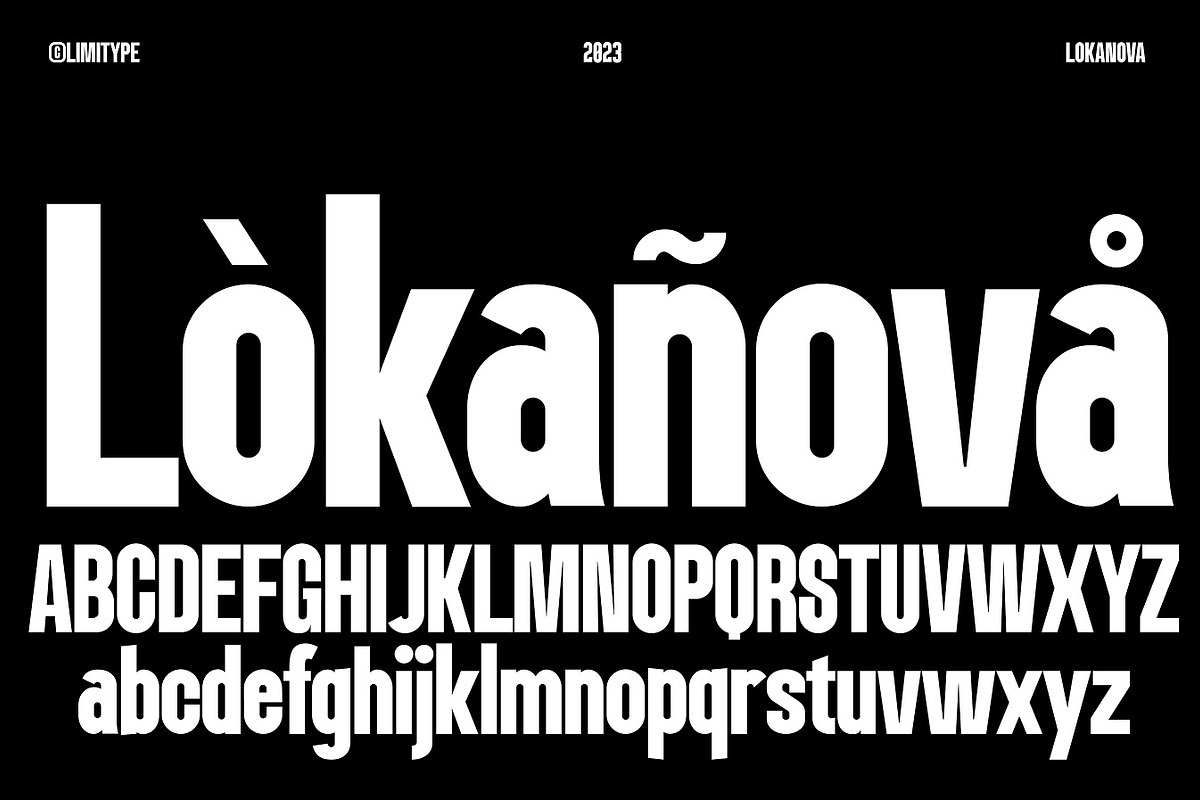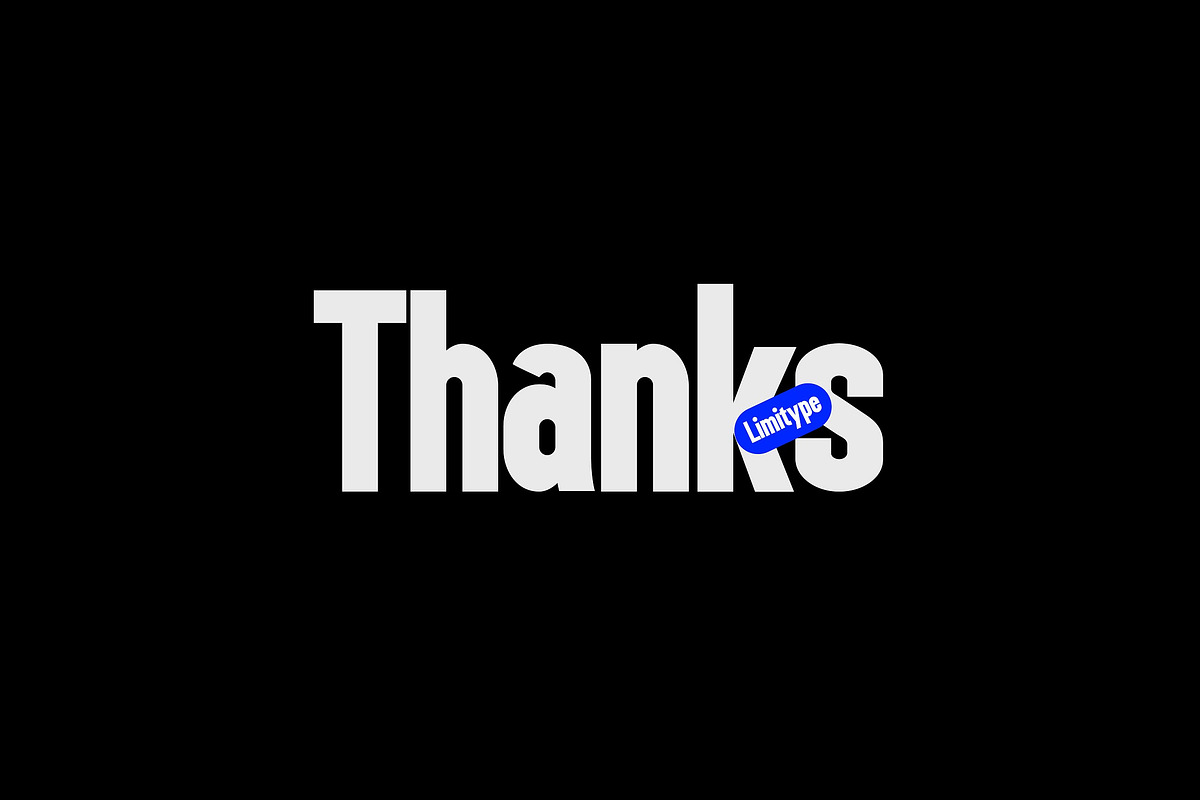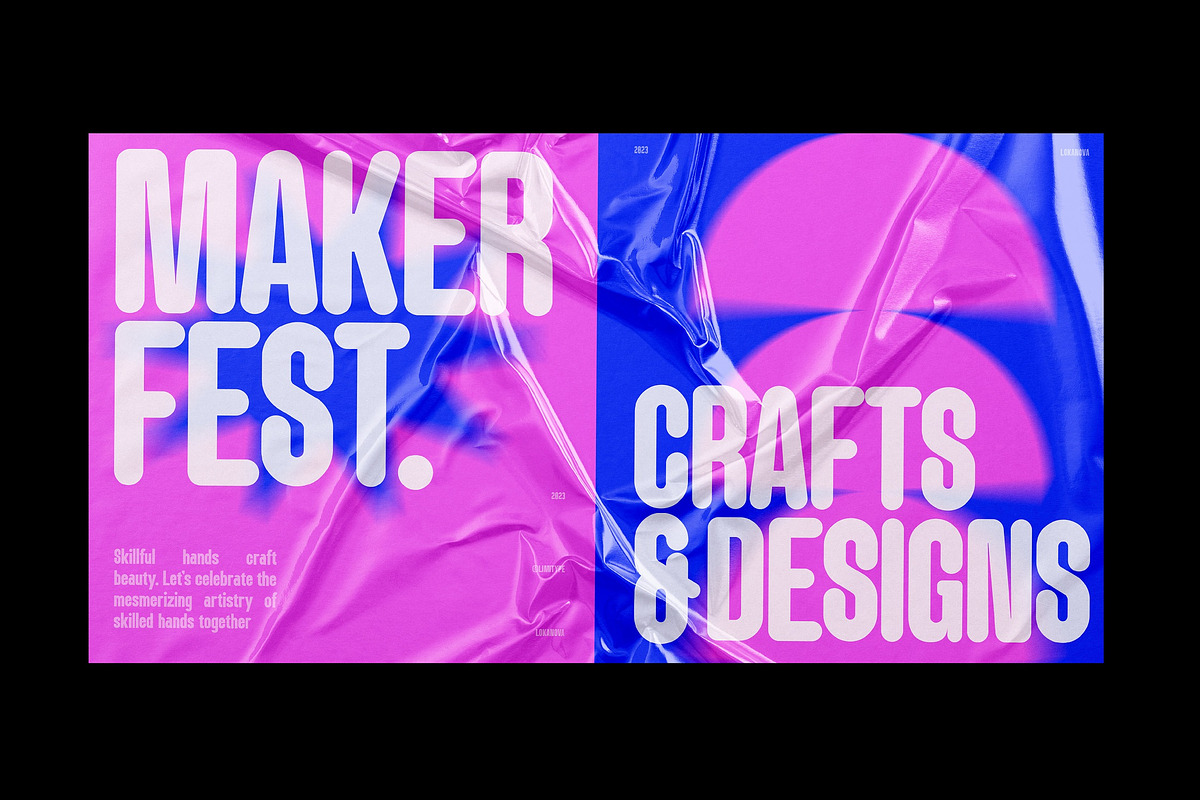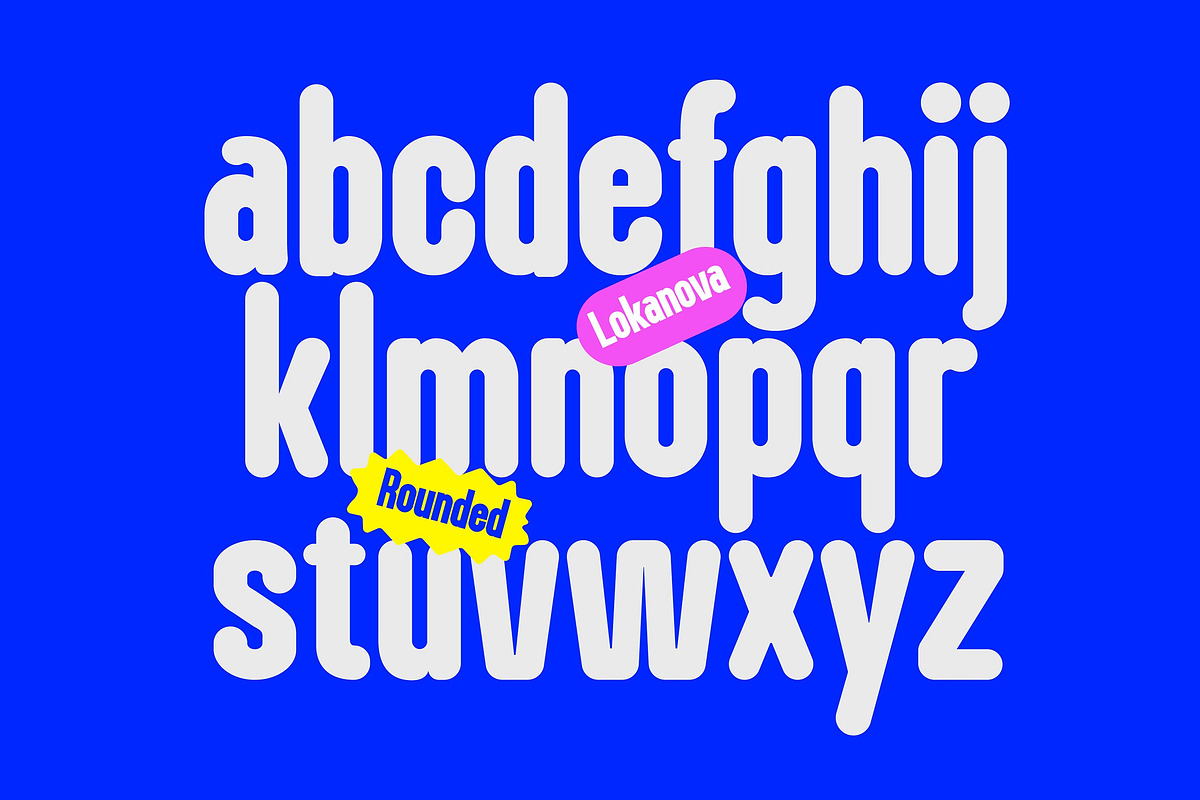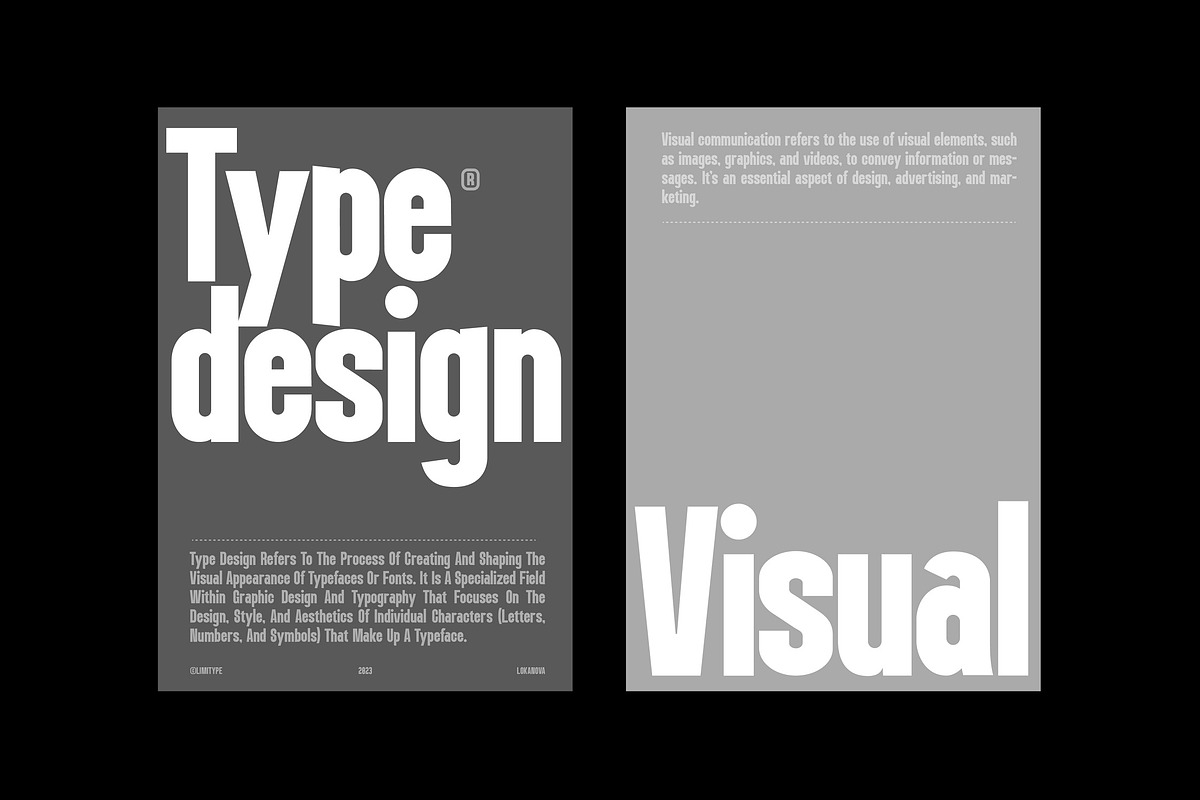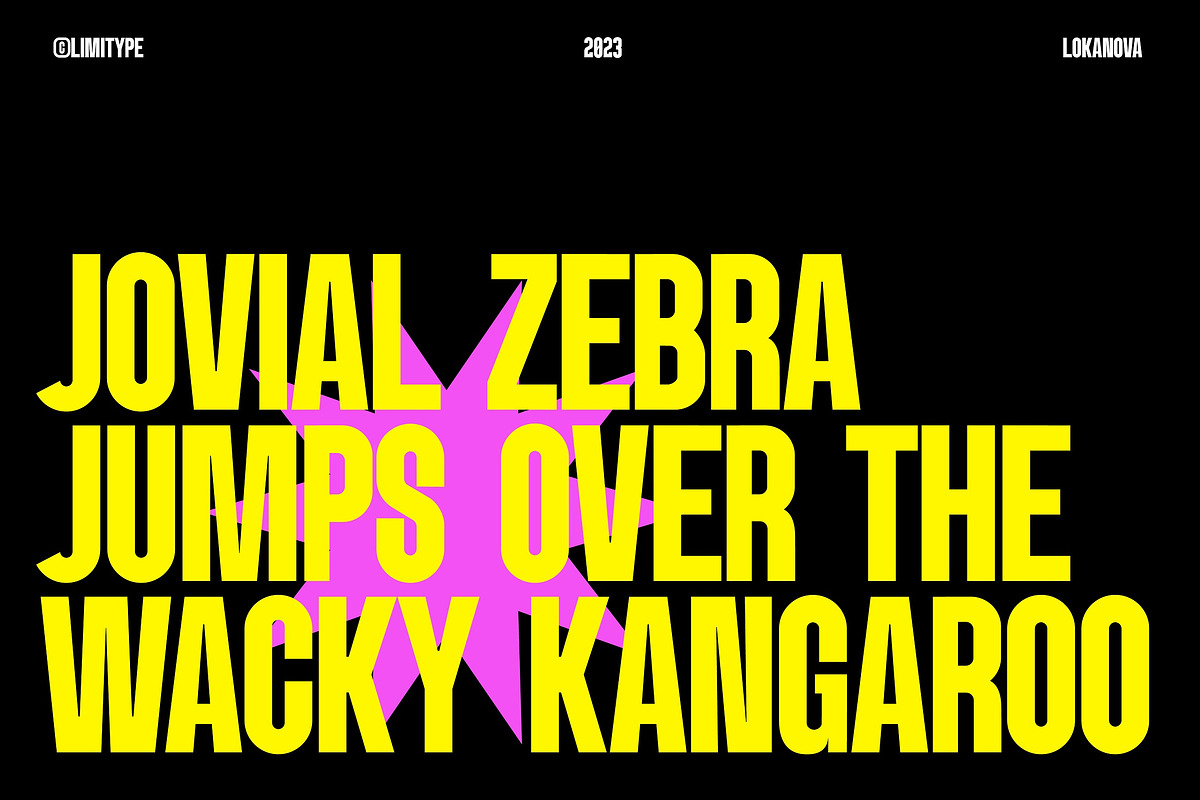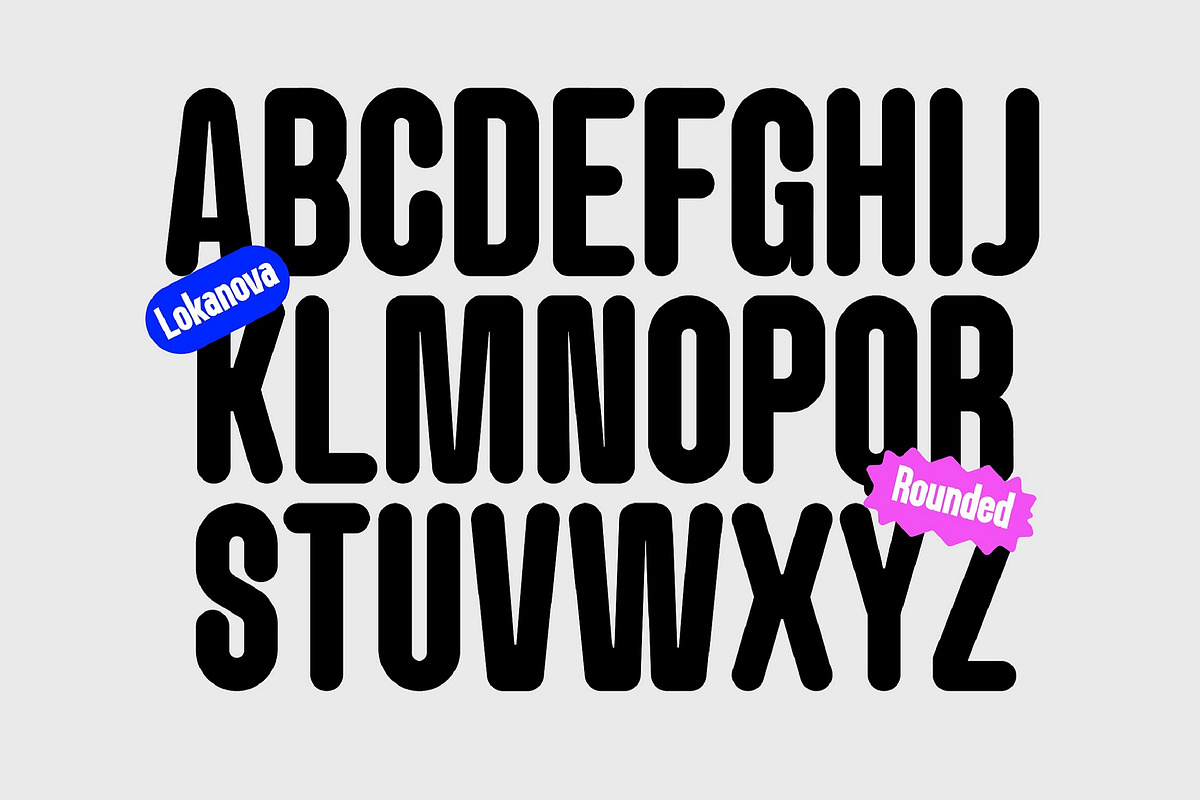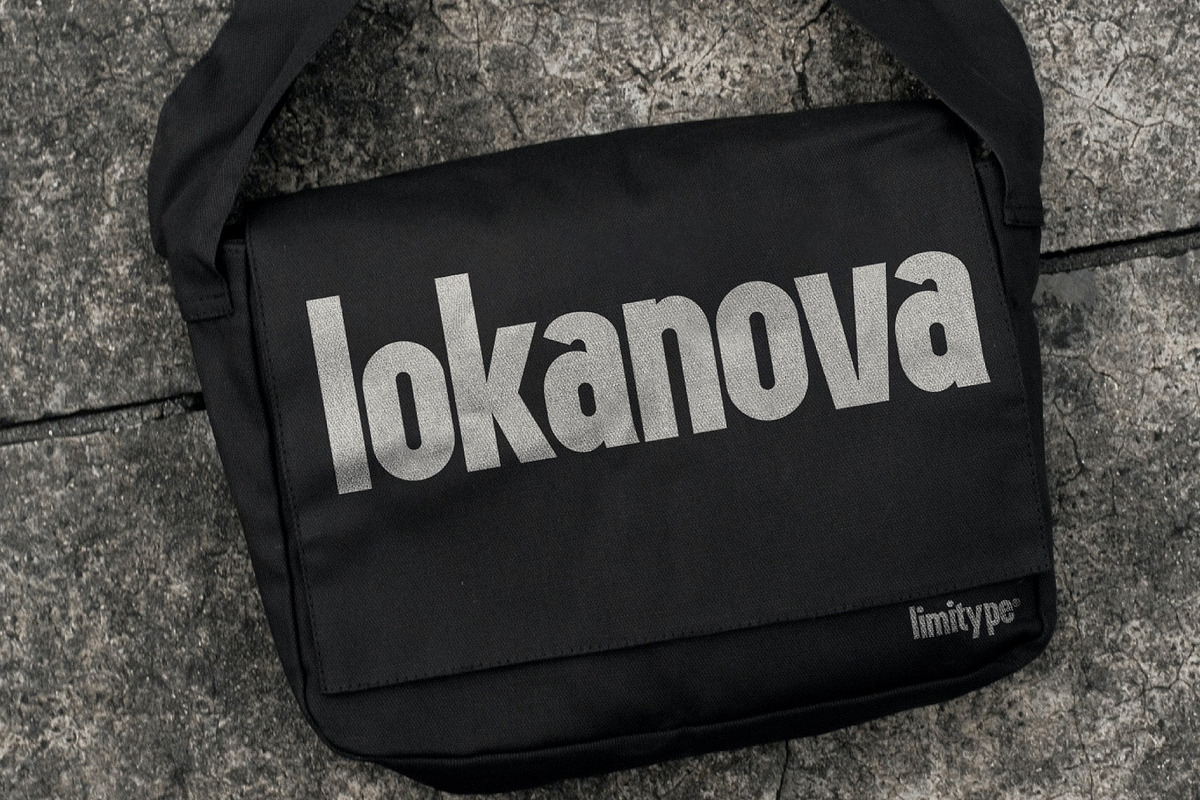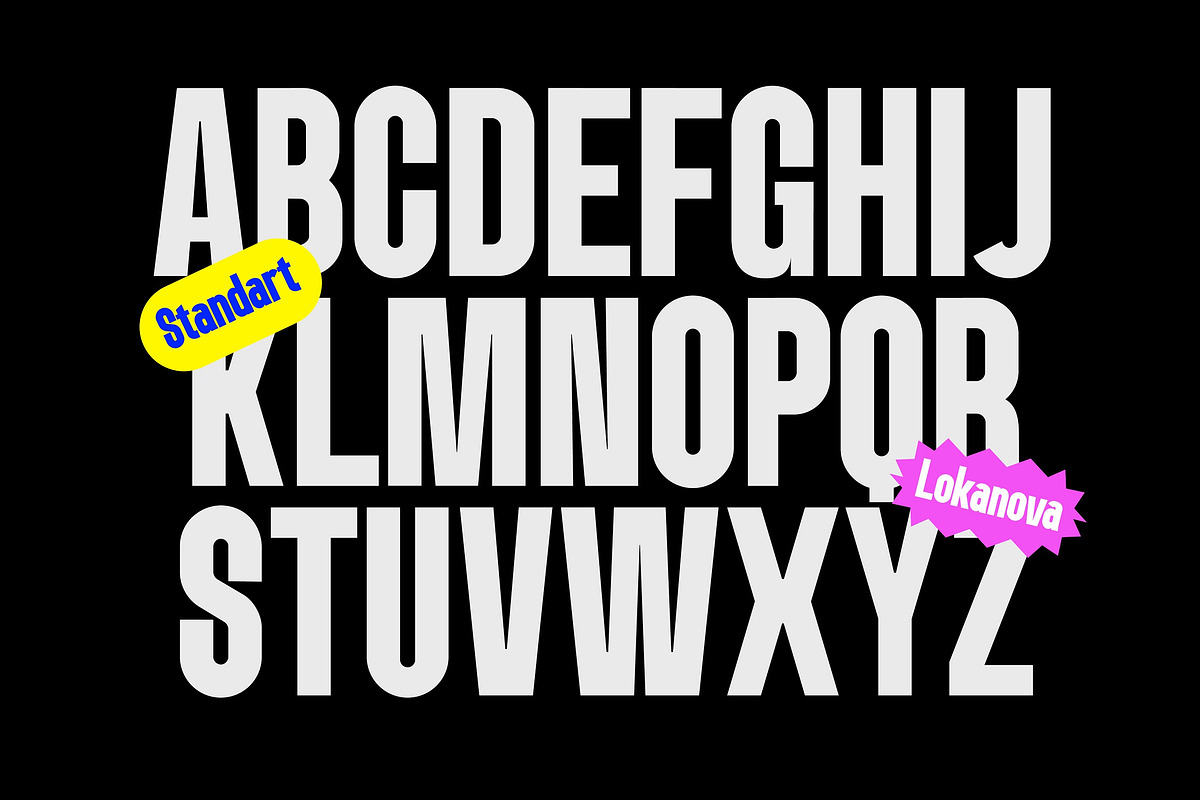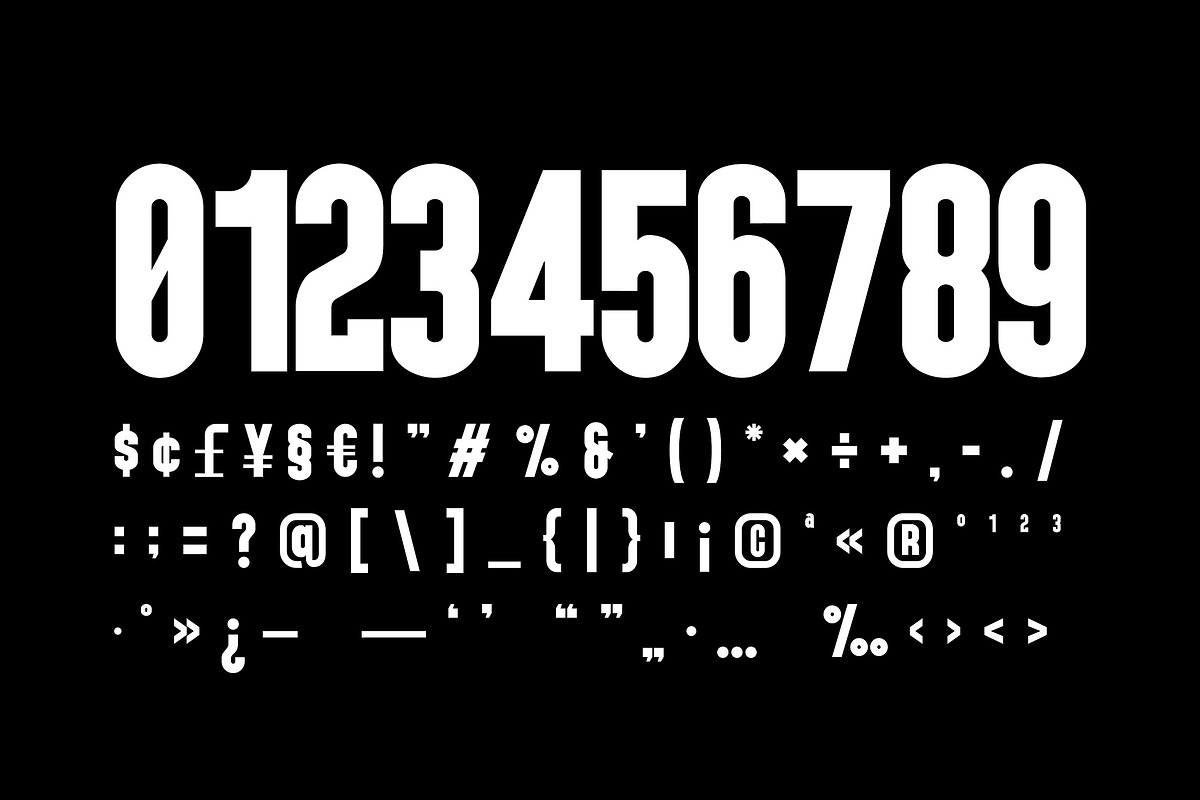
Lokanova - Modern Bold Font
Lokanova is a display font with a sans serif type designed in a bold and unique style to give the impression of a firm but still playful design. Lokanova is available with uppercase, lowercase, number, symbol and multilingual